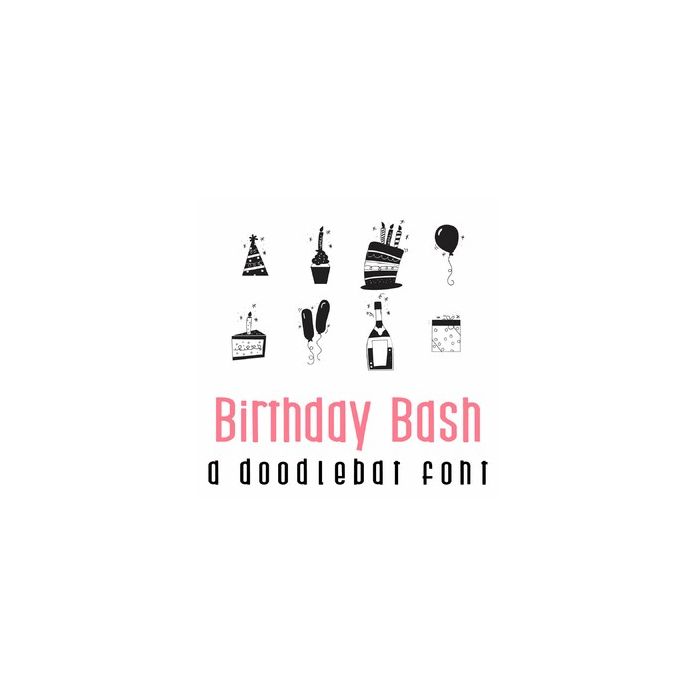
Birthday Bash Doodlebat Font
This fun doodlebat font features 26 fun party theme imagery. Perfect for cards, gifts, decor, crafts, scrap book pages, planner stickers and more!